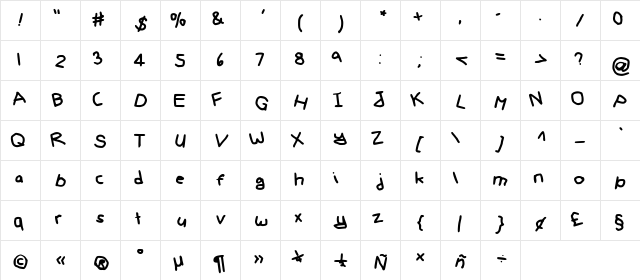
Gee_WP_Handwriting_2016_Rando Regular
Design Context for Gee_WP_Handwriting_2016_Rando Typeface
Gee_WP_Handwriting_2016_Rando flows with the natural rhythm of handwritten lettering, making it ideal for designs that call for warmth and personal expression.
Font Pairing: Combine Gee_WP_Handwriting_2016_Rando with a simple geometric sans for maximum contrast — the tension between flowing curves and clean structure is a classic typographic pairing.
Pro Tip: Pair Gee_WP_Handwriting_2016_Rando with a clean sans-serif for supporting text. The contrast between fluid script and geometric structure creates an elegant typographic hierarchy.